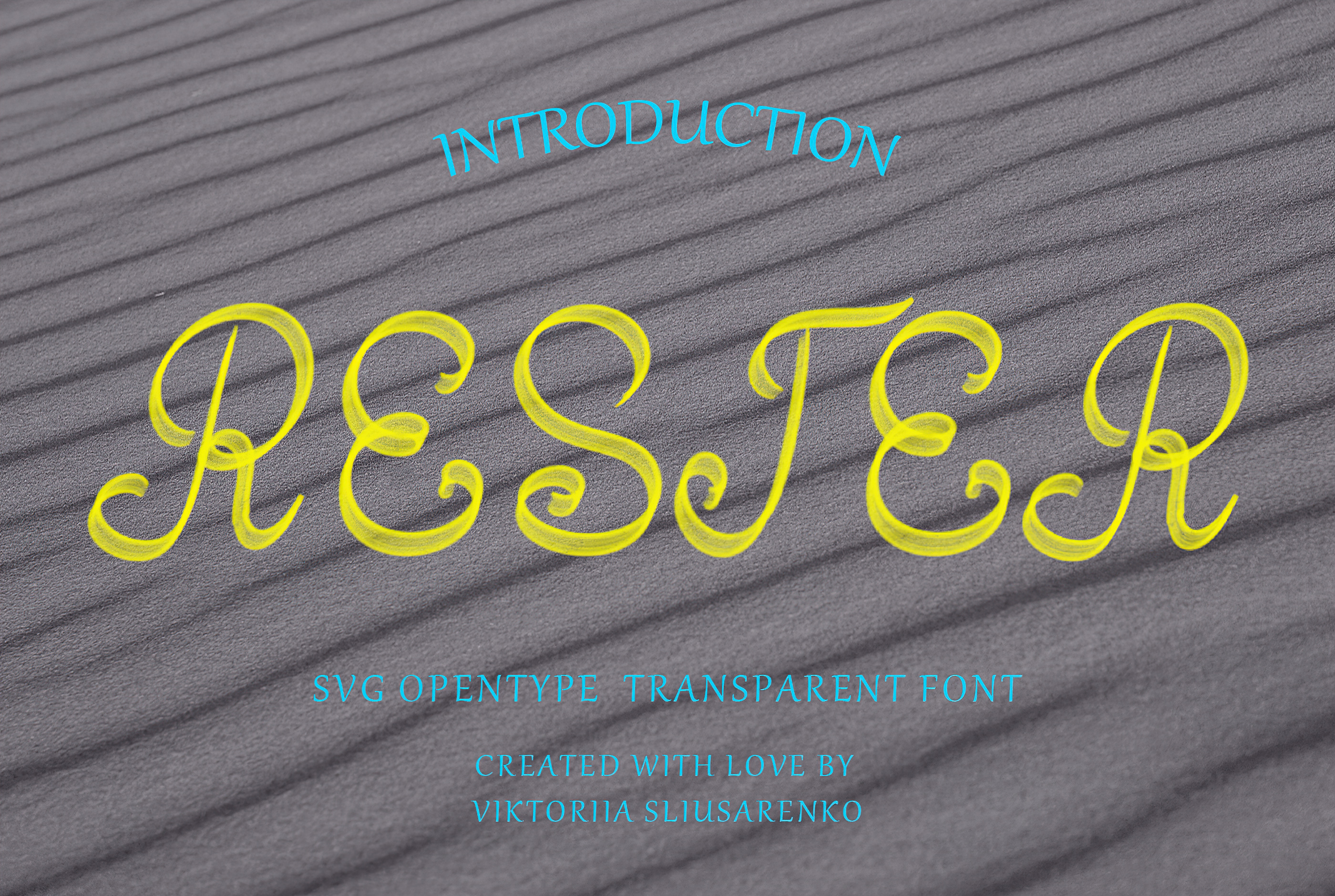
RESTER svg opentype font
Introducing Rester: A Captivating Font for Vintage-Inspired Designs
Rester is a captivating font that effortlessly transports you to the charm of old-style script handwriting. This OpenType SVG font captures the nostalgic feel of writing with a wooden pen on thicker paper, featuring delightful transparent areas that add depth and character to your text.
With its exquisite fancy cursive style, Rester showcases intricate curls and flourishes that adorn each letter. The font's graceful and fluid design exudes a sense of sophistication and elegance, capturing the essence of classic handwriting. Its smooth and calm appearance lends a timeless and refined touch to your projects.
Whether you're designing vintage-inspired invitations, elegant packaging, or refined typography, Rester brings a unique allure to your creative endeavors. Let the script's old-style aesthetics and the evocative imagery of a wooden pen on thicker paper inspire your creativity. Elevate your designs with Rester's enchanting charm and create a truly captivating visual experience. Explore the beauty of Rester and embark on a journey to the bygone era of elegant script handwriting.